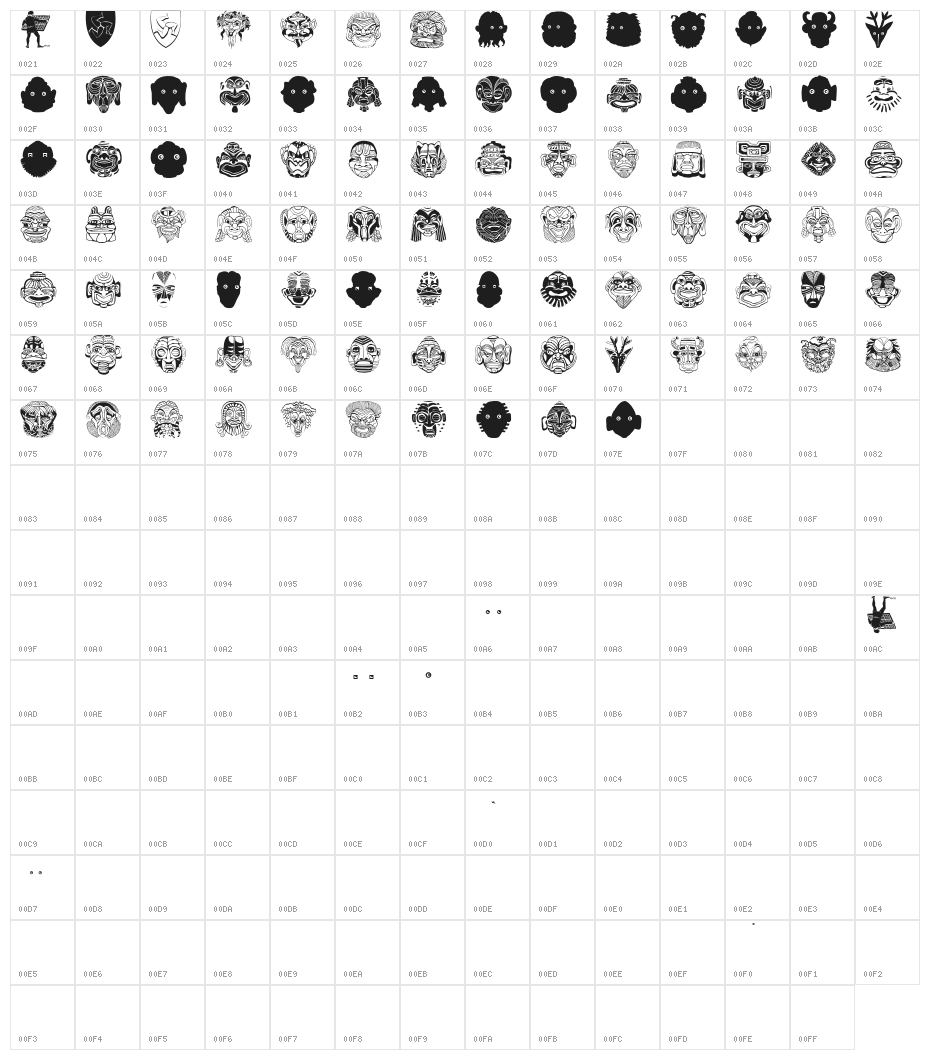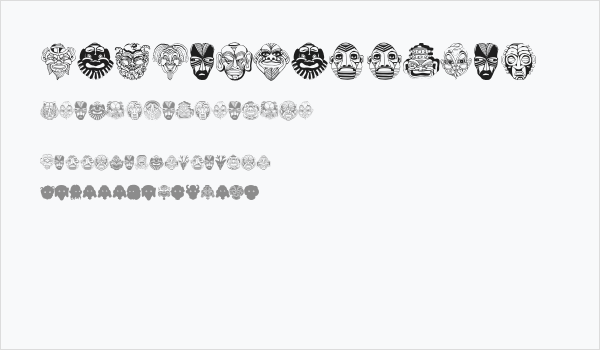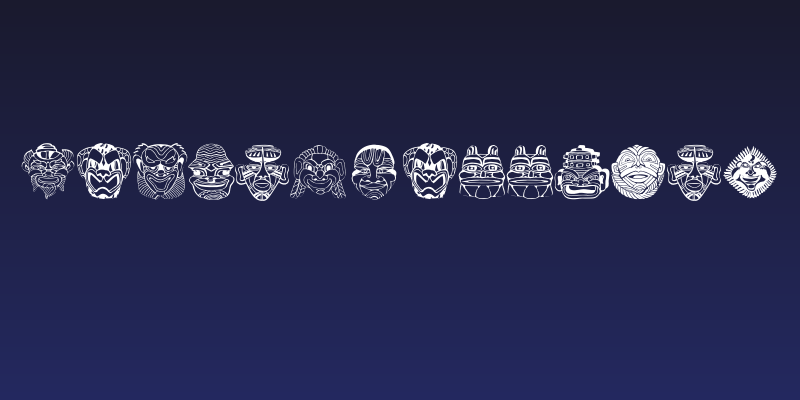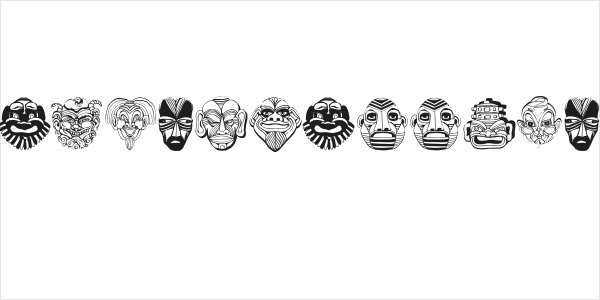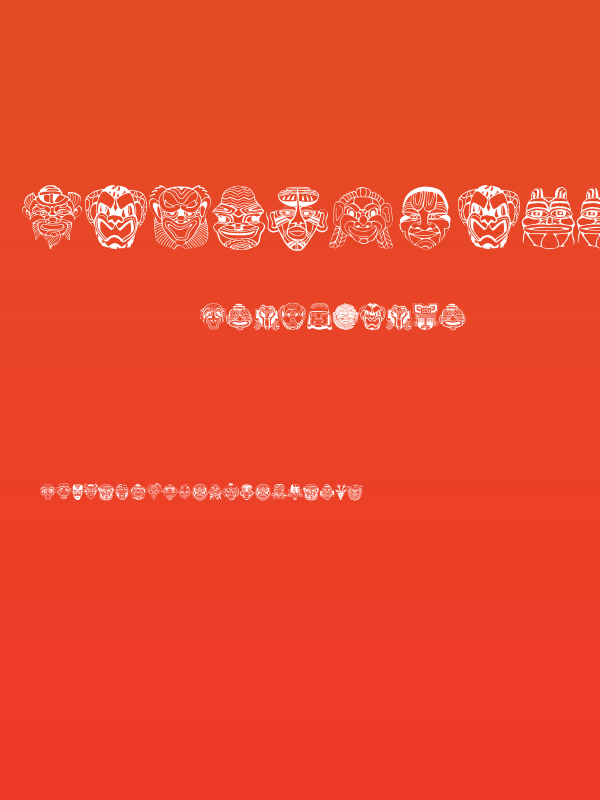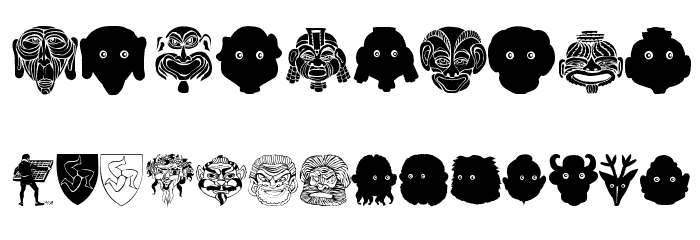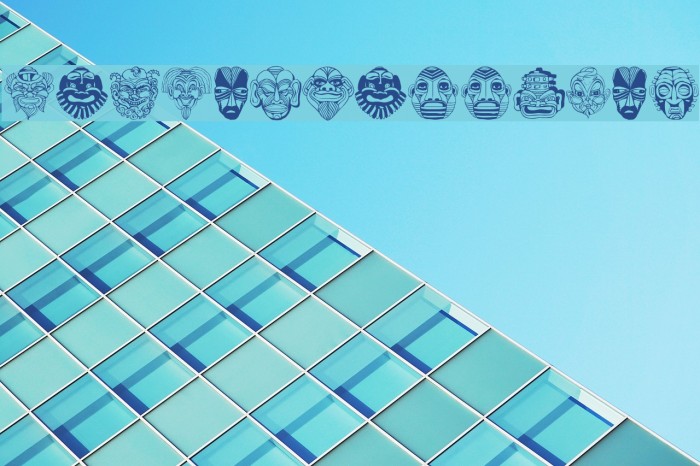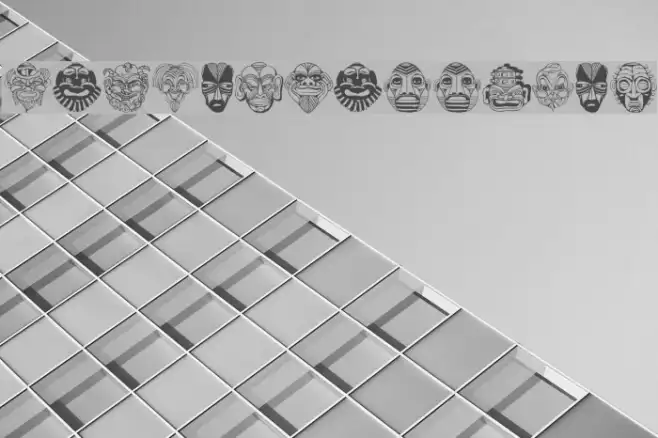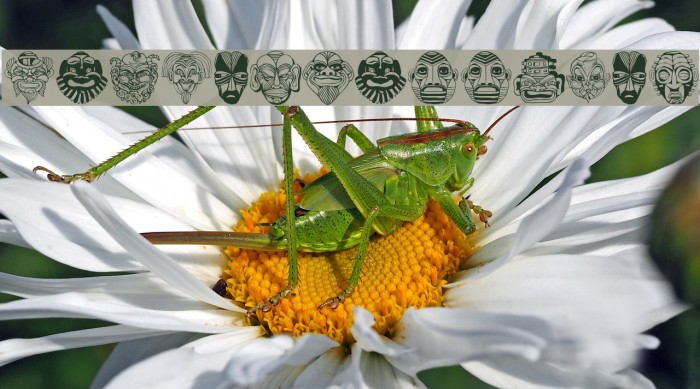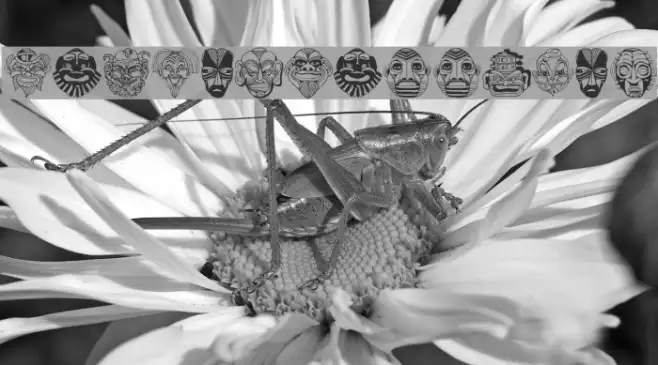
MaskenballDrei Font
MaskenballDrei Description
A highly decorative and illustrative font composed entirely of unique mask illustrations for each character, featuring a wide variety of facial expressions and artistic styles, ranging from detailed linework to bold, filled silhouettes.
| Overall Style | Decorative, Playful, Artistic, Thematic |
| Use Case | Logos, Headlines, Posters, Themed Events |
| Proposed Projects | Posters, album covers, event branding, party invitations, themed graphics, children’s books, and creative editorial layouts. |